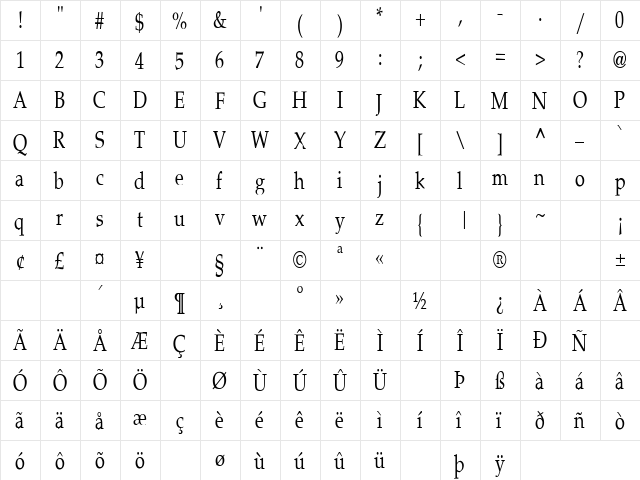
Southbound 7 Regular
Design Context for Southbound 7 Typeface
Southbound 7 is a composed and adaptable typeface that performs quietly and consistently across a wide range of design contexts.